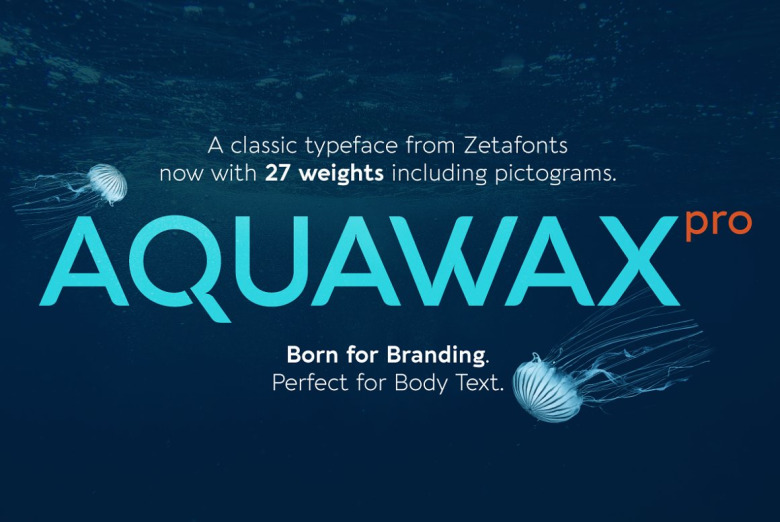
Aquawax Pro Font
Introducing the new font family. Aquawax Pro Font Family designed and shared by Francesco Canovaro. Created as a custom brand typeface in 2008, Aquawax is one of Zetafonts most successful typefaces – having been chosen, among the others, by Warner Bros for the design of the logo for the Aquaman movie.
Its logo design roots are obvious in the design details, from the blade-like tail of the Q and the fin-like right leg of the K to the intentionally reversed uppercase W, as well as the rounded edges softening the stark modernist lettershapes. While this details make the typeface extremely suitable for logo and display design, especially in the bolder weights, the open, geometric forms of the letters and a generous x-height make it extremely readable at small sizes, making it perfect for body text and webfont use.
Aquawax Pro Font Family